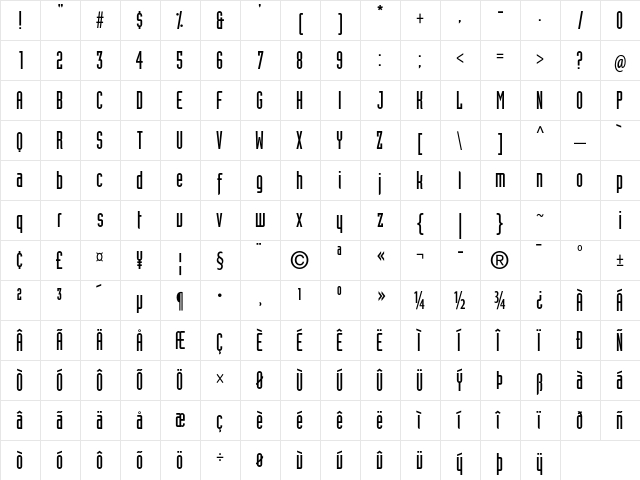
Industria LT Std Solid Font Preview
Industria LT Std Solid
Industria LT Std Solid Font Details
| Style | Solid |
| Designer | Neville Brody |
Design Context for Industria LT Std Typeface
Industria LT Std offers clean, dependable letterforms without strong stylistic allegiance, making it a practical choice for designers who need flexibility. Its slender proportions lend an understated elegance to any composition.